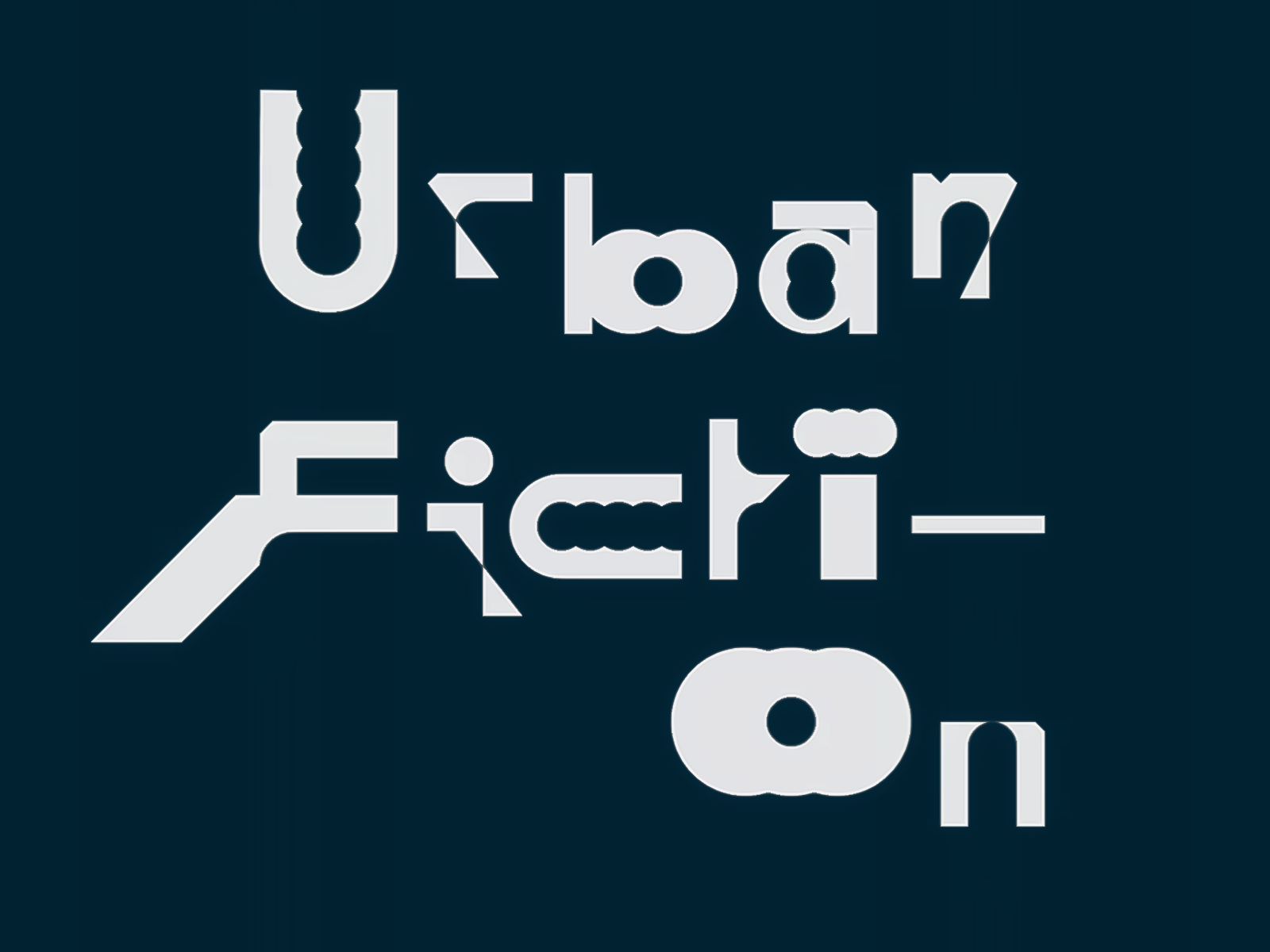
Urban Fiction Experimental Typeface
A visually striking typographic design featuring the words "Urban Fiction" in a fragmented and modernist style. Each letter appears uniquely constructed, incorporating different geometric shapes, sharp angles, and unconventional forms. The overall design has a futuristic, cyberpunk, or brutalist aesthetic, making it suitable for experimental design projects.